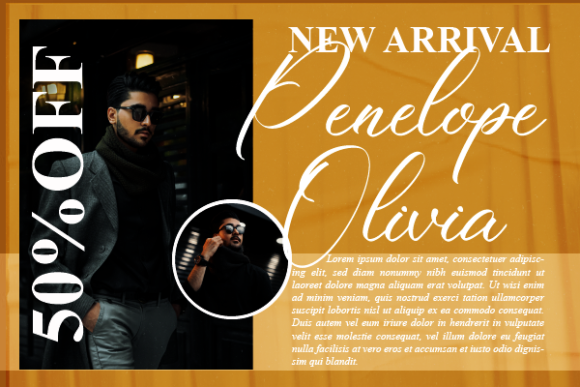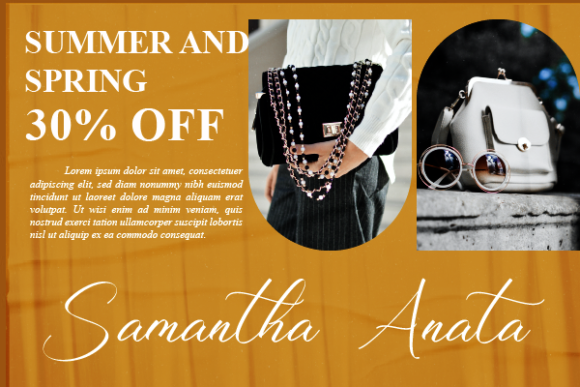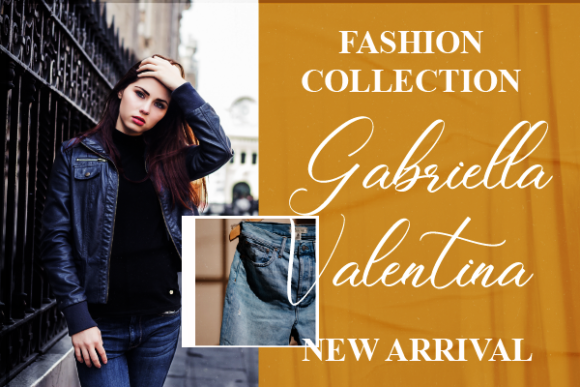
Introduction to Rosemary Carolina Font
There’s something magical about holding a pen and watching your creative thoughts come to life on paper. For designers, this moment is often the spark that sets a project ablaze. But sometimes, the right tool can make all the difference between a mediocre design and a masterpiece. Enter the Rosemary Carolina Font – a delicate, handwritten font that’s as elegant as it is versatile.
Whether you’re working on a high-end marketing campaign or a personal creative project, the Rosemary Carolina Font is an invaluable design resource. Its high quality and refined aesthetic make it perfect for adding a touch of sophistication to your work. Plus, with a transparent background, you can easily integrate it into any design without worrying about visual clutter.
Key Features of Rosemary Carolina Font
- High-quality, unique design ideal for creative projects, such as logos, branding materials, and editorial content.
- Features a transparent background, allowing for easy customization and layering in design projects.
- Includes 4 font styles: Regular, Italic, Bold, and Bold Italic, providing versatility for various design applications.
- Designed with a modern and elegant aesthetic, perfect for use in digital and print media.
- Supports a wide range of languages, making it a valuable asset for international design projects.
Honest Review: Rosemary Carolina Font
I recently stumbled upon the Rosemary Carolina Font while searching for a free download to use in a creative project. As a designer, I appreciate a good high-quality font that can elevate my designs and communicate the right message to my audience. The Rosemary Carolina Font did not disappoint.
Here are some aspects that work well: ✨
- High-quality typography with beautiful cursive lines
- Transparent background, allowing for seamless integration with any design
- Perfect for adding a touch of elegance and sophistication to your designs
However, I did encounter a few limitations: ⚠️
- The font may not be suitable for large-scale body text, as it can be quite ornate and difficult to read in smaller sizes
- The font family is limited, so you may not have as many font variations to choose from
Overall, the Rosemary Carolina Font is a great addition to any designer’s toolkit. Its beauty and versatility make it a perfect choice for various creative projects, and the fact that it’s free to download is a definite bonus. While it may have some limitations, I highly recommend giving it a try and seeing how it can elevate your designs.
Rosemary Carolina Font is a versatile design resource that can be used in a variety of creative projects, including wedding invitations, birthday cards, and business presentations. Its high-quality design and transparent background make it perfect for layering and combining with other graphics.